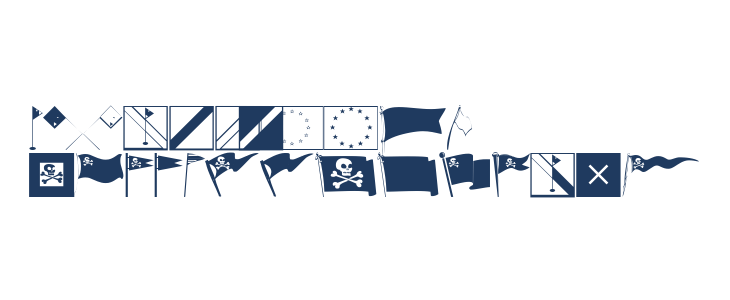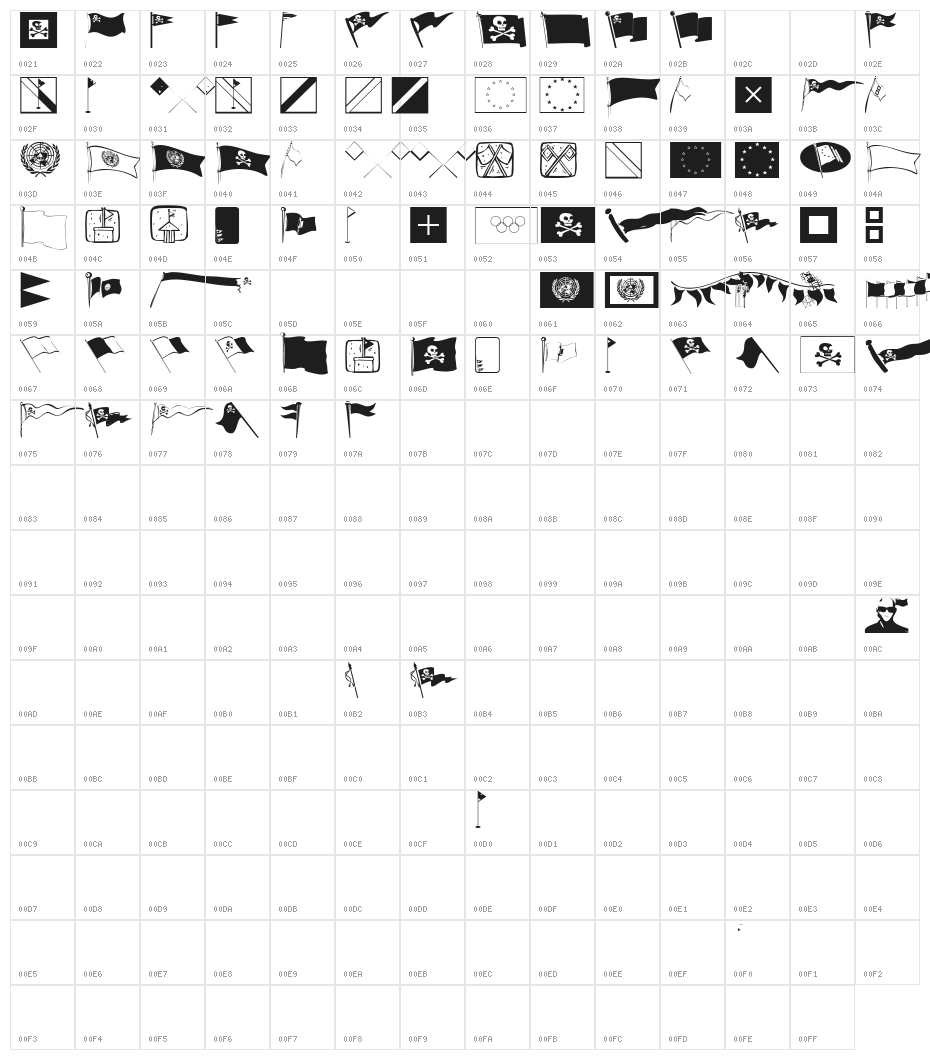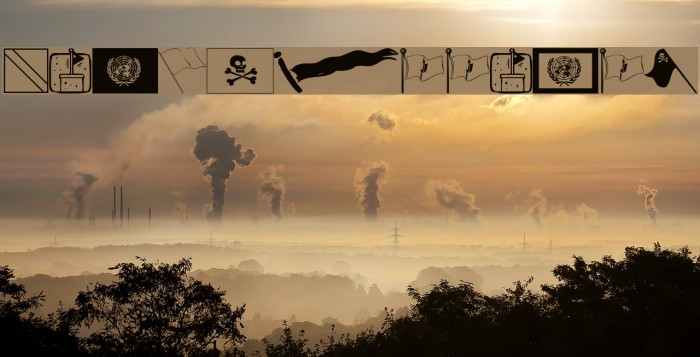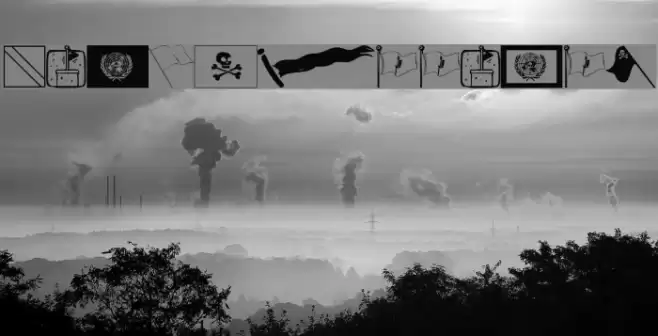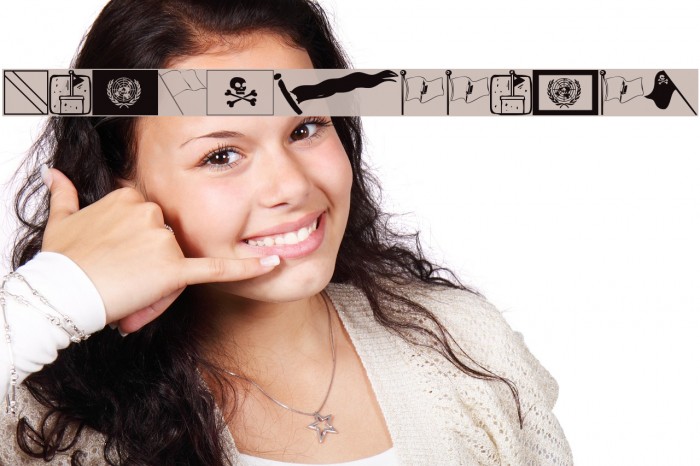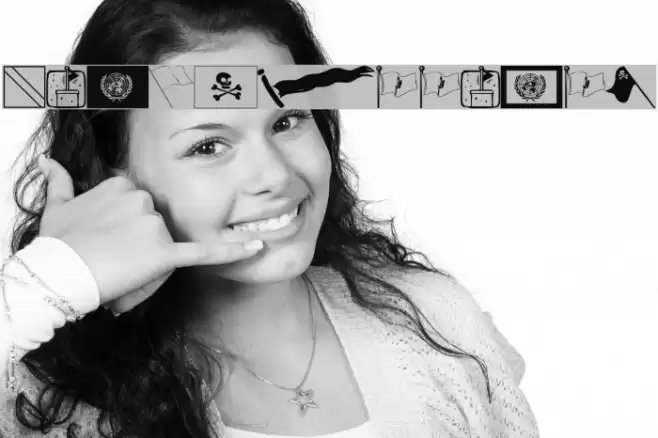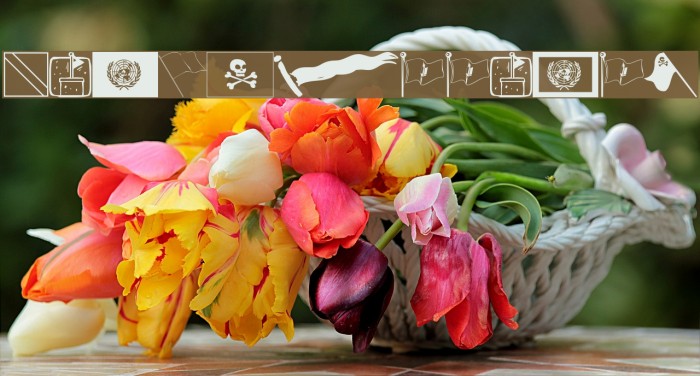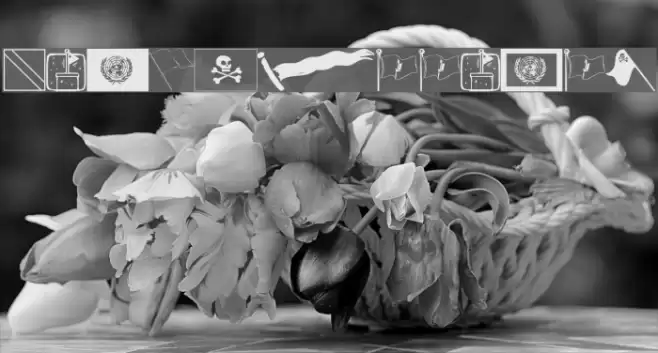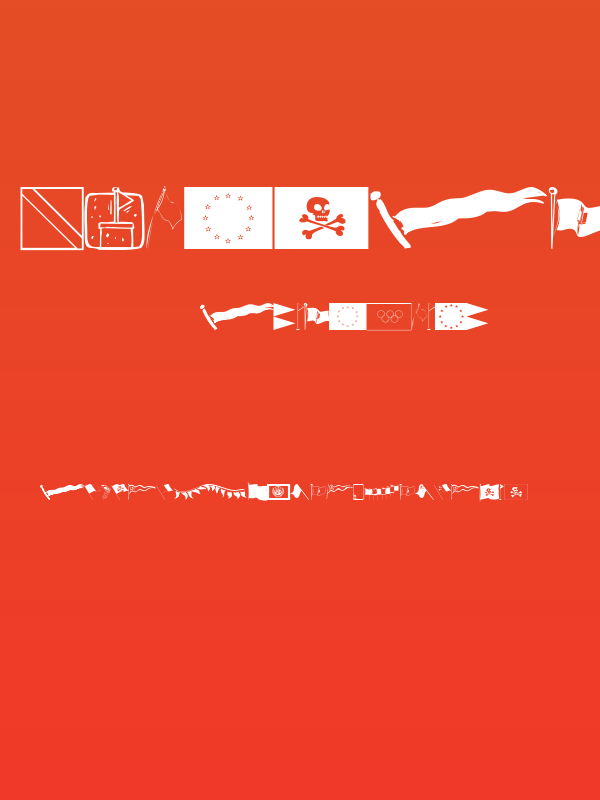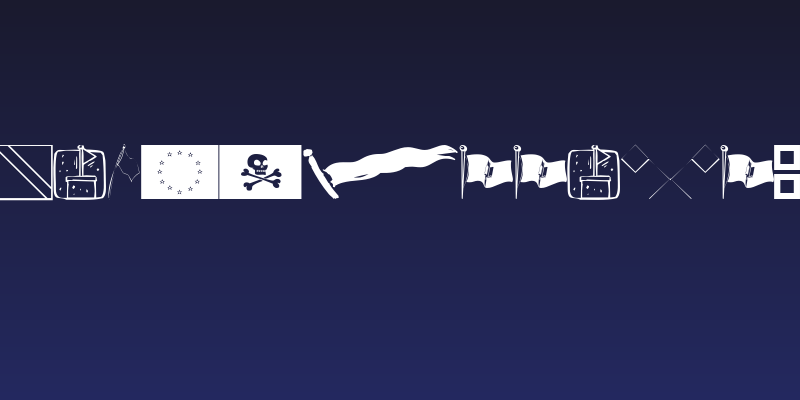
FlagsToolbox Font
A decorative display font composed entirely of various flag illustrations, including national, signal, pirate, and organizational flags, rendered in black and white with a mix of rectangular, triangular, and wavy flag shapes.
Overall StyleDecorative, Thematic
Use CaseLogos, Headlines, Themed graphics, Illustrative text
Proposed ProjectsEvent posters, maritime-themed graphics, educational materials, party invitations, childrenÒ€ℒs books, themed signage.